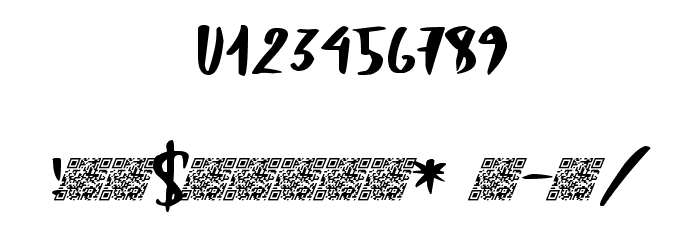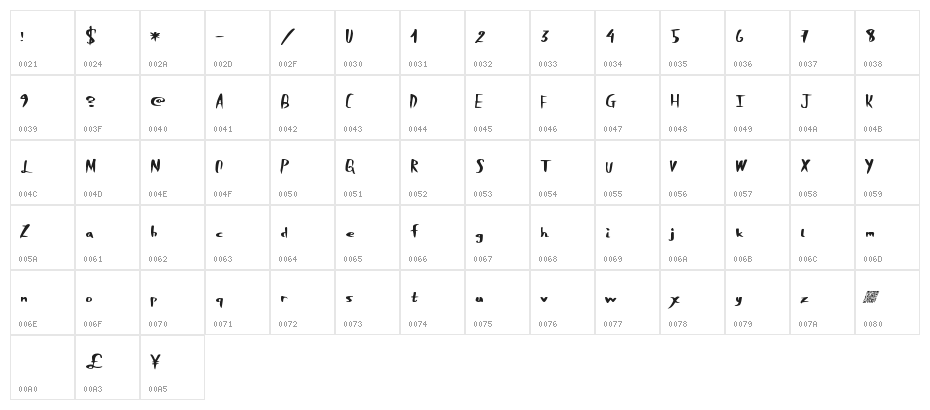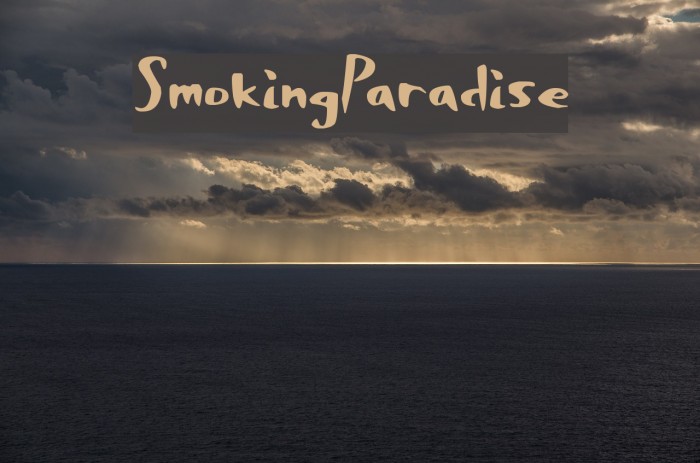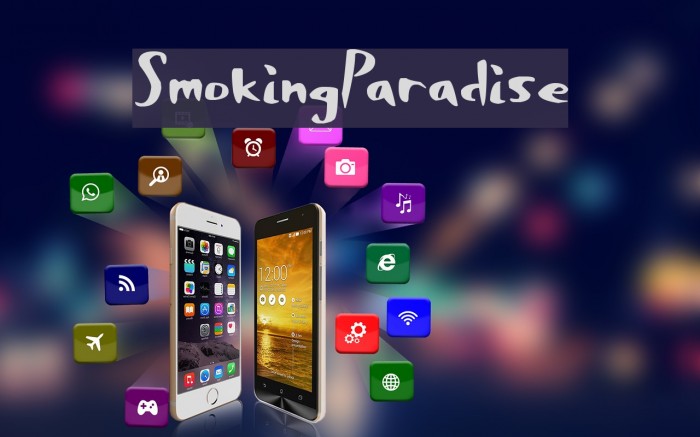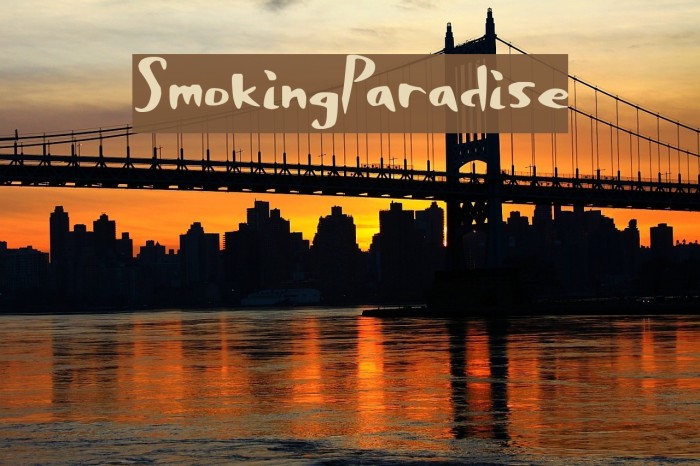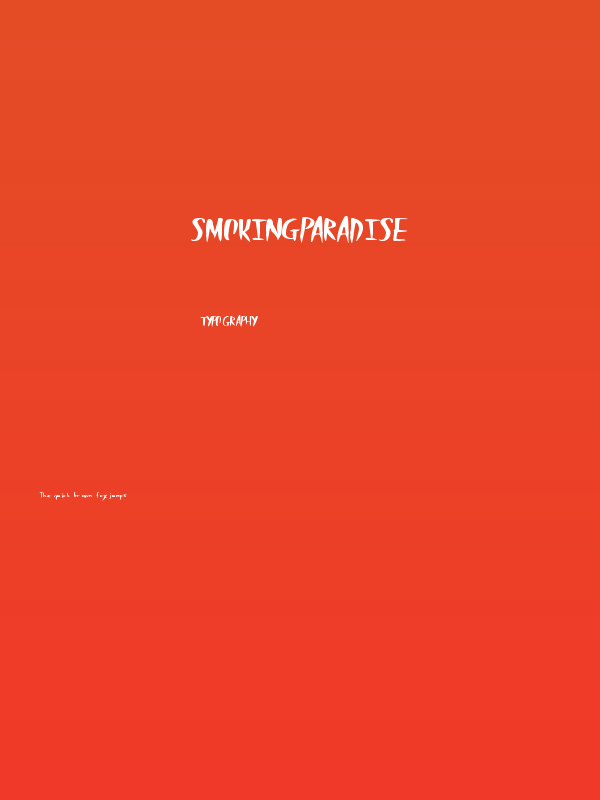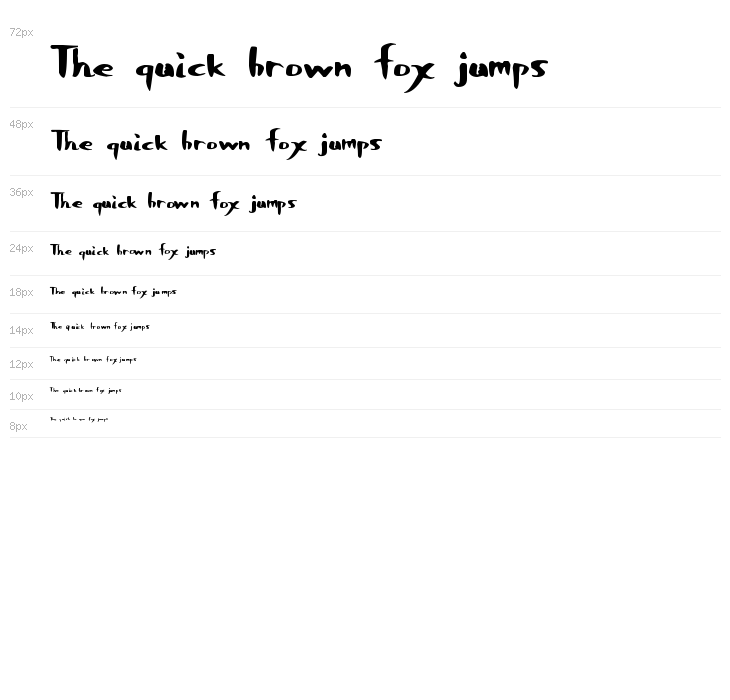
SmokingParadise Font
SmokingParadise Description
This font features a bold and dynamic style with a handwritten, brush-like appearance. The uppercase letters are characterized by their fluid, sweeping strokes, giving them a sense of motion and energy. The lowercase letters maintain this energetic style, with some characters having unique, playful curves and angles. The numerals are consistent with the overall aesthetic, offering a bold and slightly irregular form. Special characters are creatively designed, adding to the font's artistic flair. The overall impression is one of creativity and expressiveness, making it suitable for projects that require a personal and artistic touch.